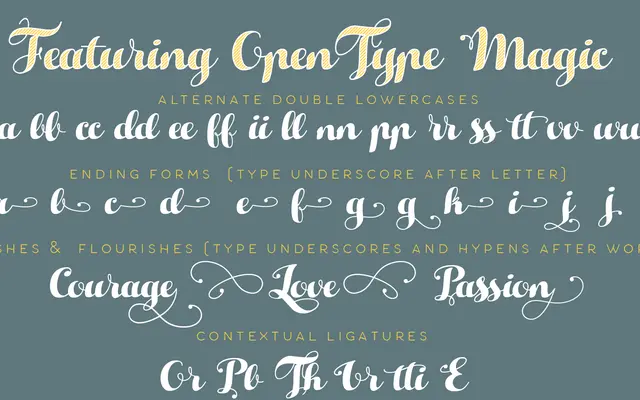
Hello Script
Zetafonts · Cosimo Lorenzo Pancini, Andrea Tartarelli, Cristiana Pezzatini · 2015
A high-contrast calligraphic script with parallel-nib body shapes, monoline swashes and multilayer colour fill variants for festive and decorative use.
Designed by Cosimo Lorenzo Pancini, Hello Script uses strong round letterforms drawn with a parallel nib alongside monoline swashes and terminals. It ships with over ten swash alternates, OpenType ligatures, contextual alternates and terminal forms, plus fill and striped-fill variants intended for multilayer colour font composition. The family extends to a sans-serif companion and a Christmas-themed branch with iconographic cuts, covering 188 languages across the Latin script.
A high-contrast calligraphic script drawn with a parallel nib, featuring monoline swashes and strong round body shapes, placing it firmly in the calligraphic script category.